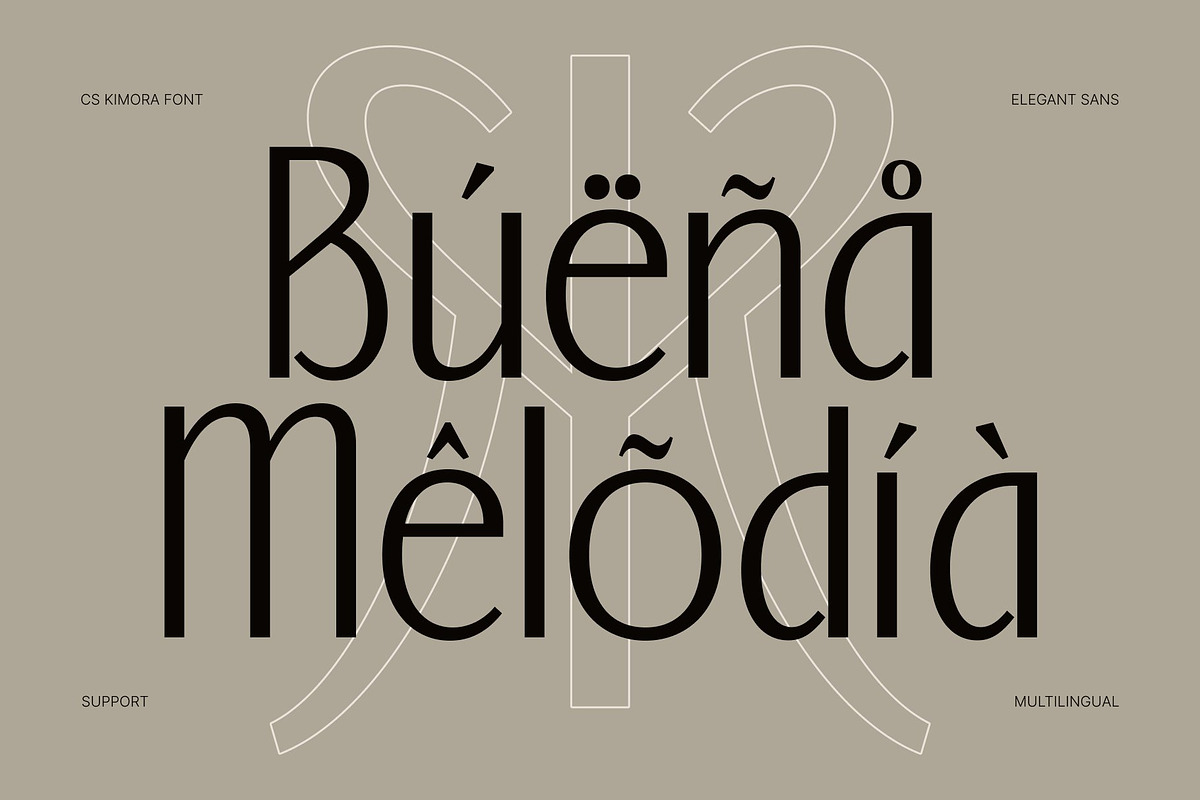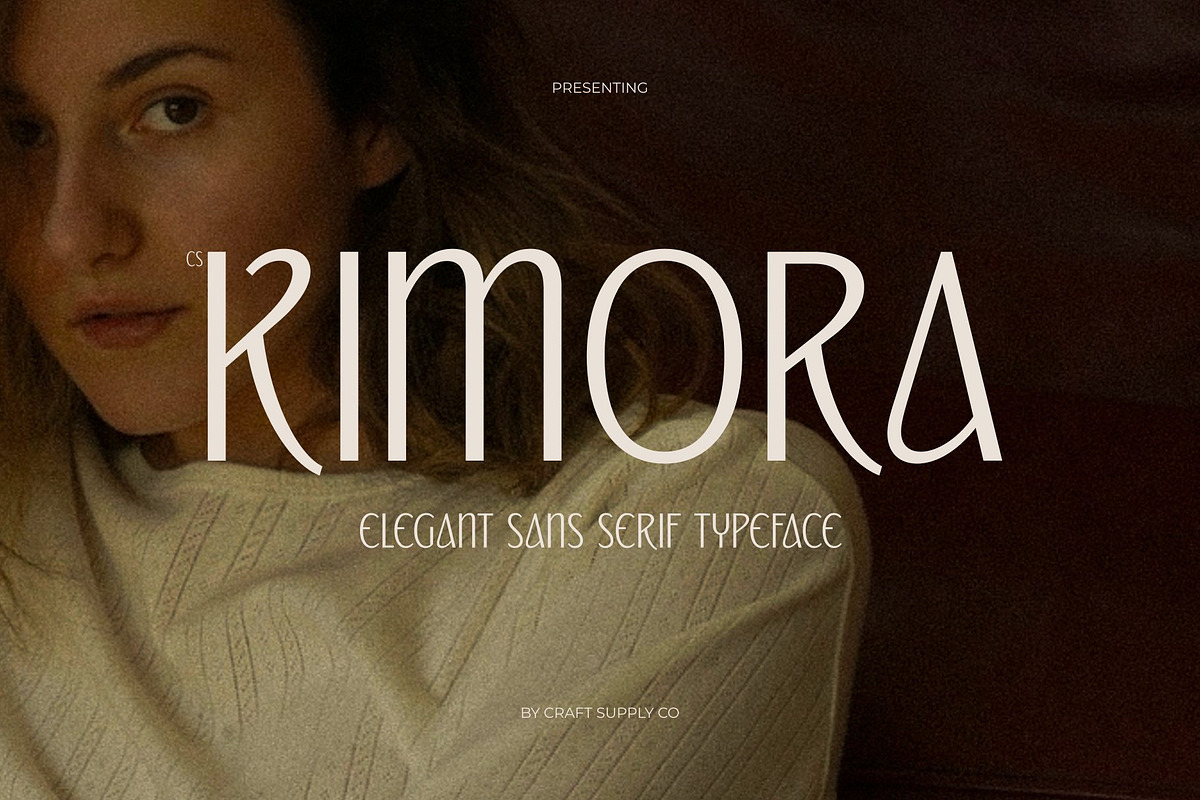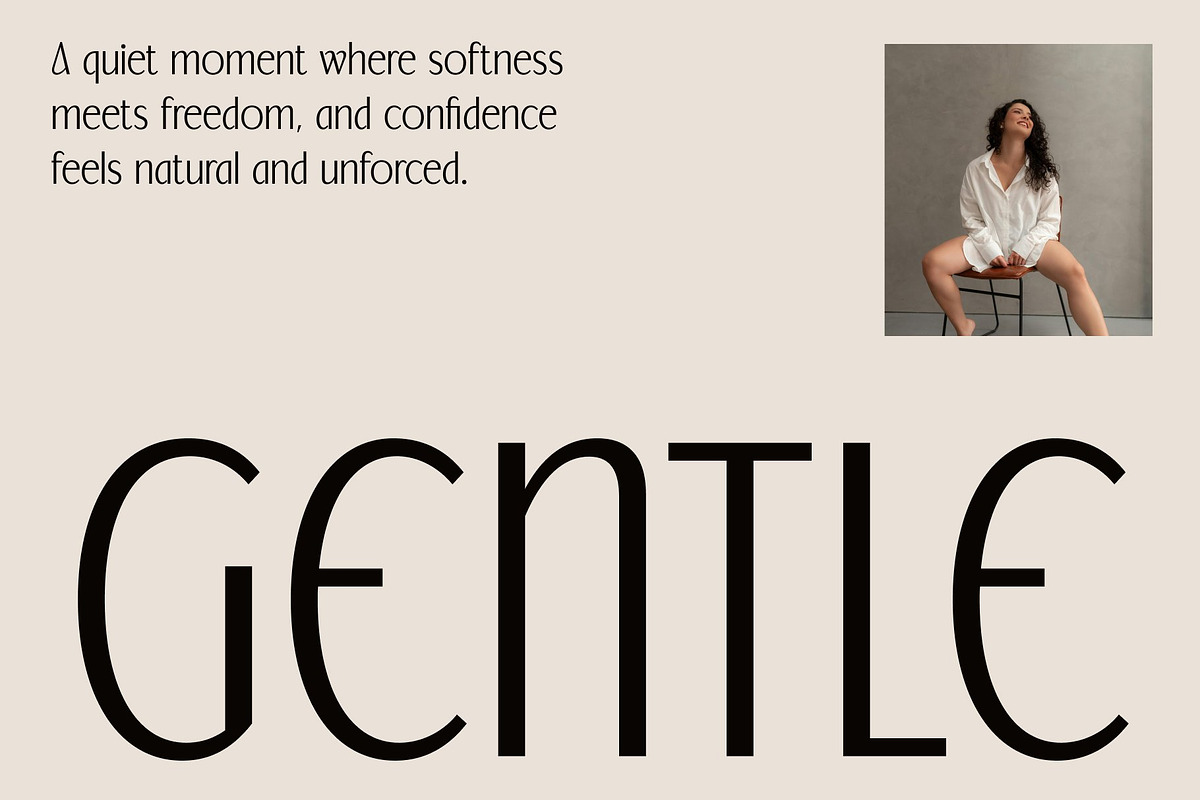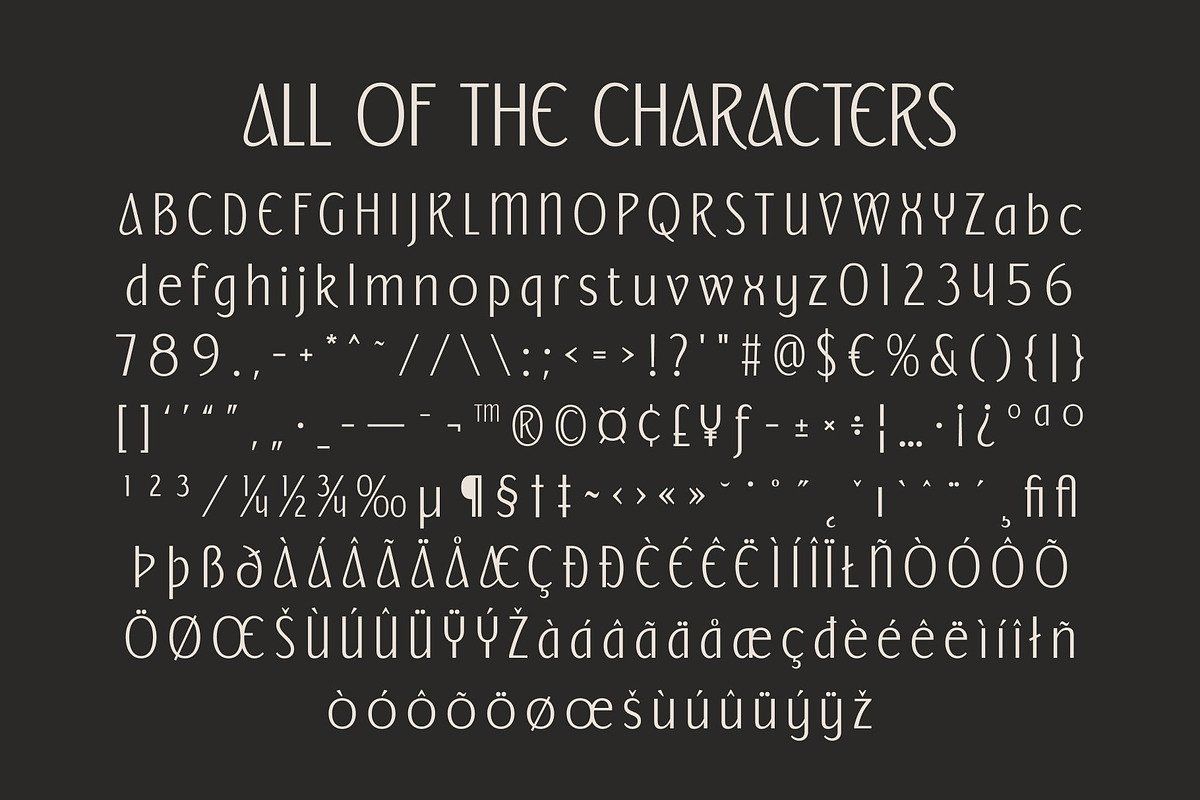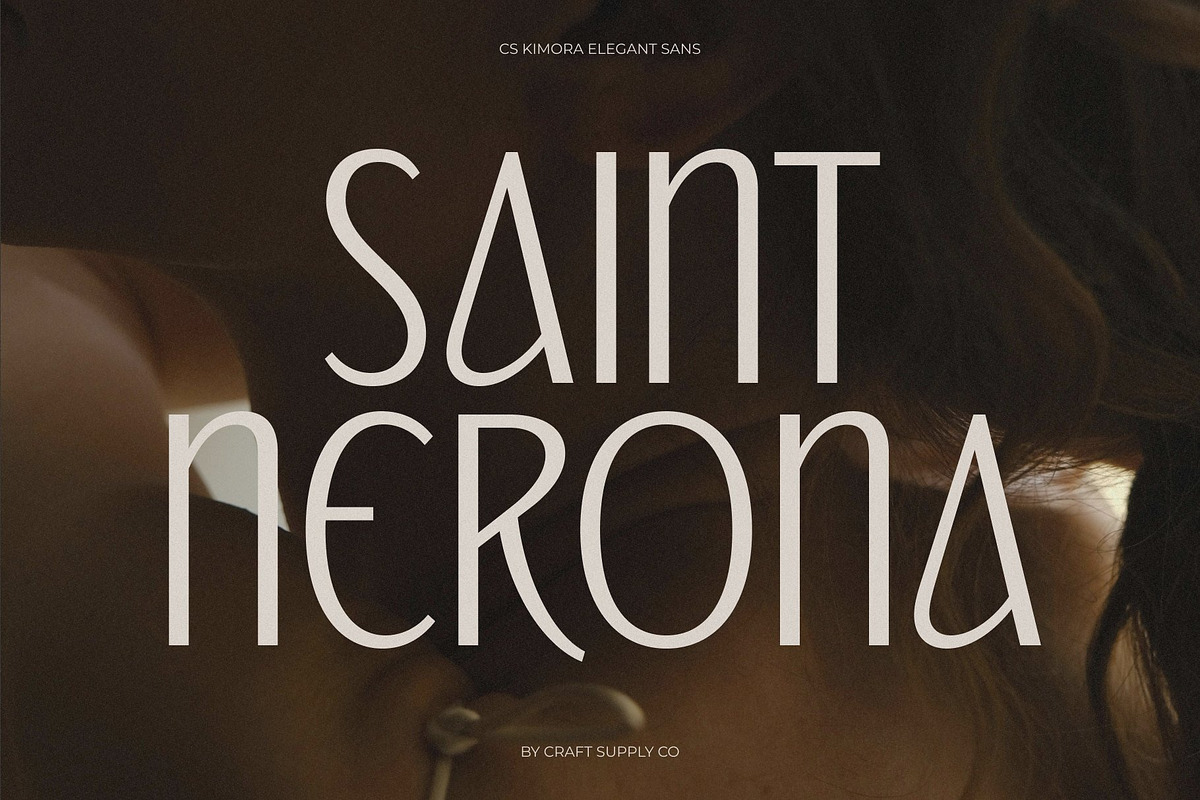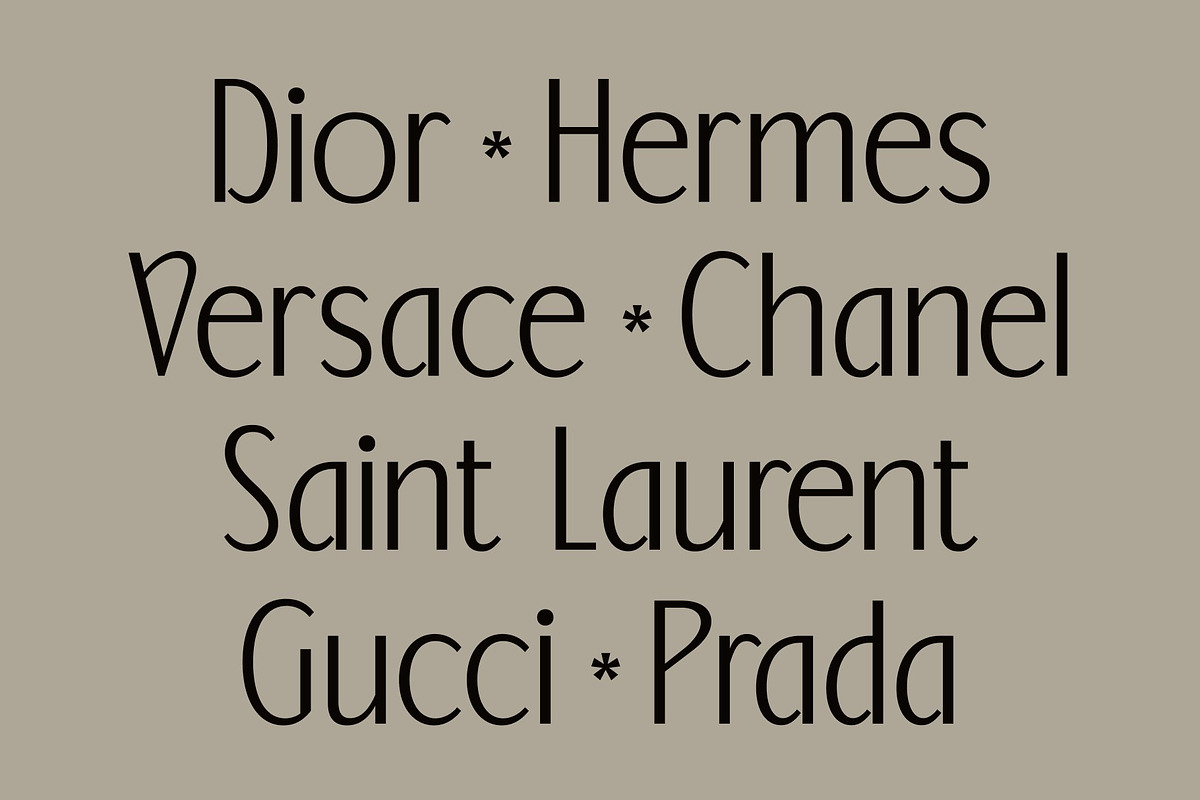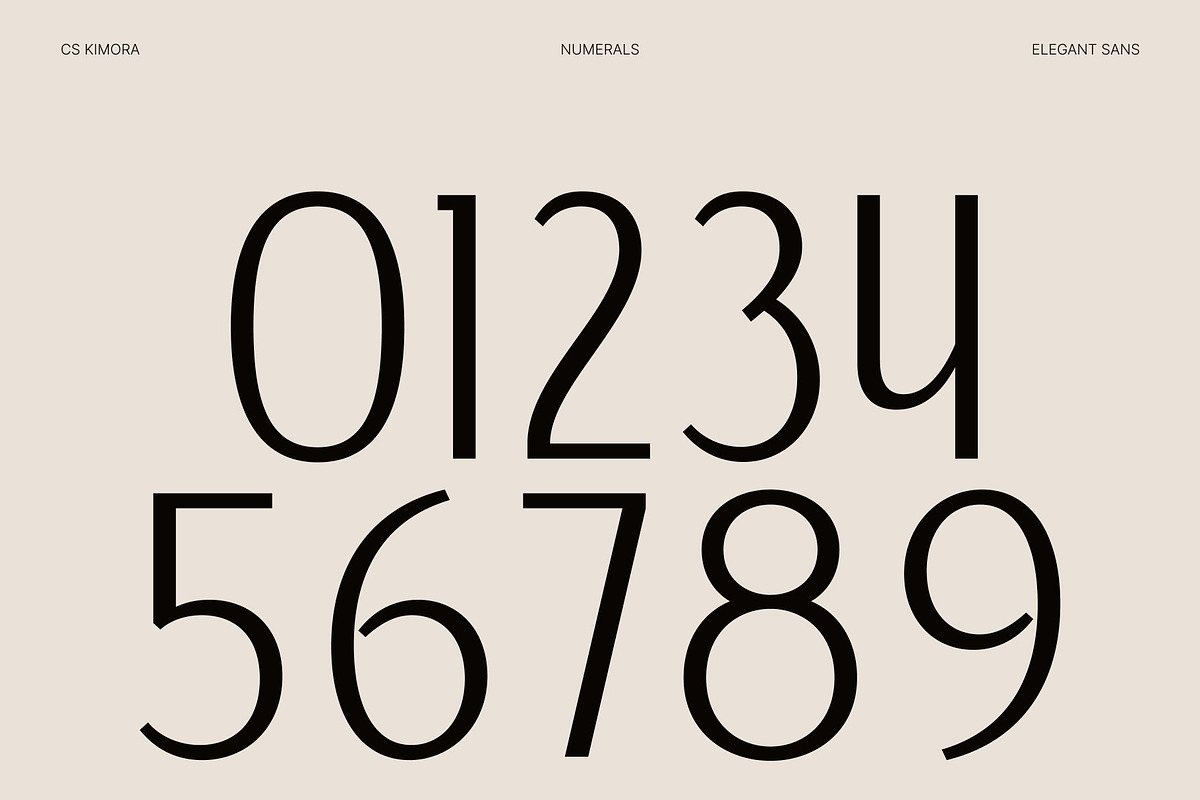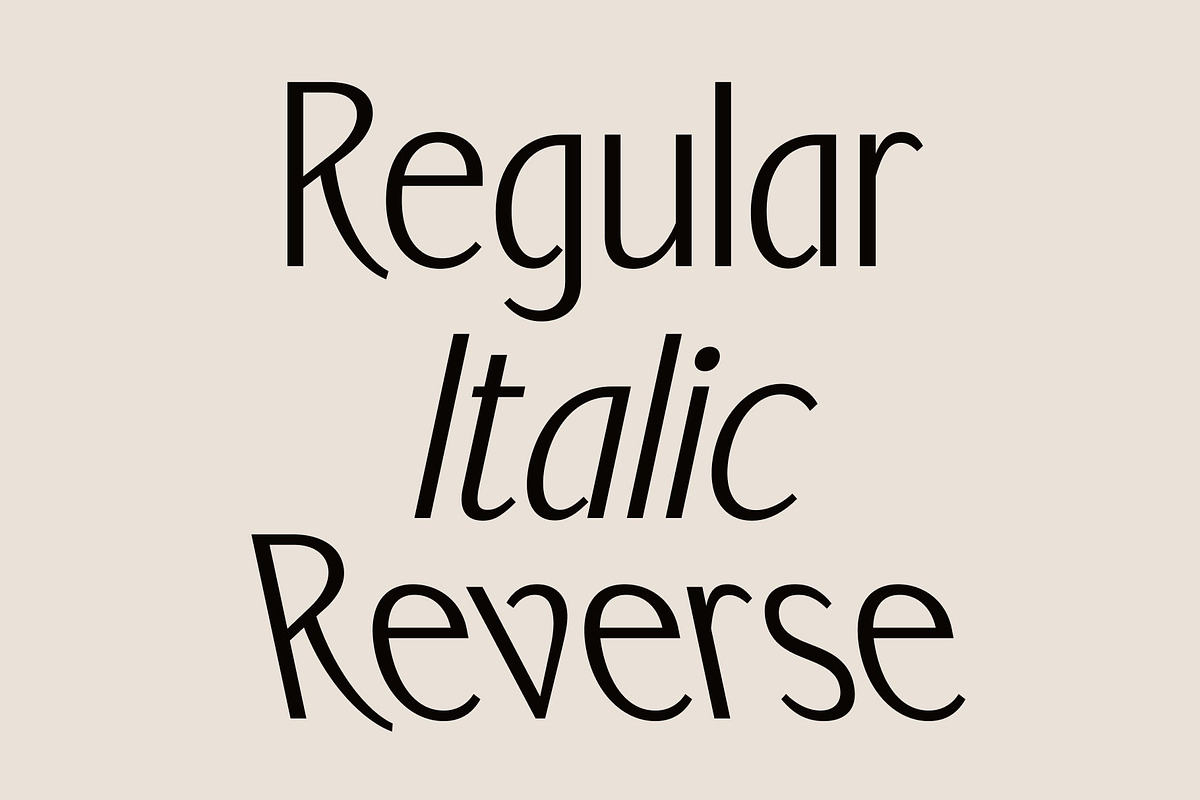
CS Kimora – Elegant Sans Serif
CS Kimora – Modern Sans Serif with Decorative Sophistication
Modern Sans Serif with Elegant Contemporary Style This is a modern sans serif font that blends clean structure with decorative elegance to create a sophisticated and captivating visual identity. Designed with contemporary lines and refined proportions, this typeface delivers a polished appearance that feels luxurious, stylish, and modern. It is crafted for designers who want typography that communicates beauty with confidence and clarity.
Clean Forms with Decorative Refinement The font features sleek letterforms enhanced by subtle decorative details that add personality without overwhelming the design. Its smooth curves and balanced geometry create a harmonious rhythm, giving every word a graceful and visually engaging presence. This thoughtful combination makes this font feel both minimal and expressive.
Sophisticated Presence with Modern Appeal This font radiates sophistication through its refined structure and contemporary styling. The elegant construction allows it to adapt beautifully across modern layouts while maintaining a high-end aesthetic. Whether used in large headlines or elegant branding systems, the font consistently delivers a refined and memorable impression.
Perfect for Luxury Branding and Creative Projects From luxury branding and editorial layouts to posters and creative campaigns, this font offers a versatile typographic solution. Its combination of clean elegance, decorative sophistication, and contemporary character ensures your designs feel stylish, refined, and visually striking across every application.
CS Kimora Regular
CS Kimora Italic
CS Kimora Reverse Italic